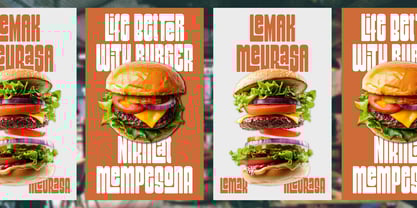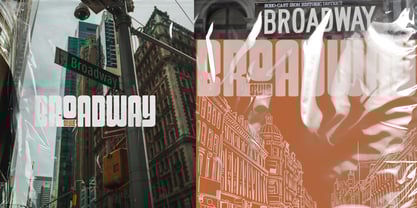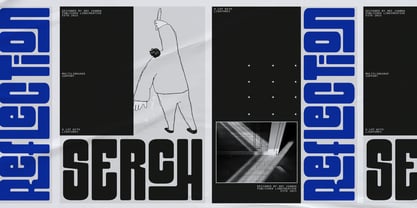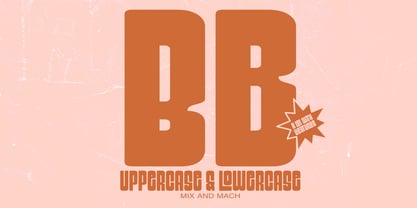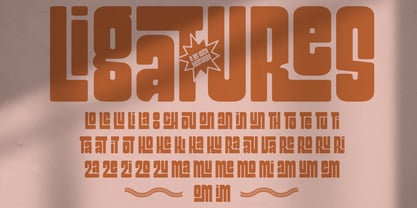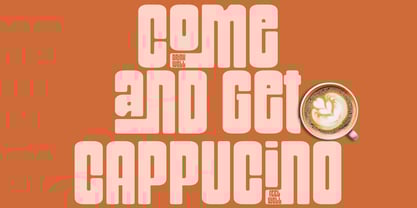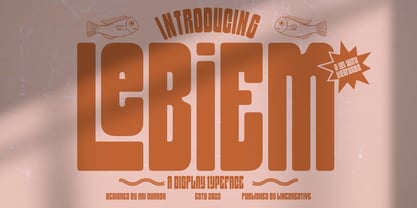
Lebiem
by Linecreative
The Lebiem Font Family was designed by Ari Juanda and published by Linecreative. Lebiem contains 1 styles. More about this family
Lebiem is a bold condensed display font that combines strength with approachability. Its rounded corners add a soft and friendly touch, balancing the boldness of its form. The thicker upper and lower sides of each letter emphasize a sense of firmness and authority. Equipped with ligature characters, Lebiem offers flexibility and stylistic variety for creative typography.
Designers: Ari Juanda
Current Foundry: Linecreative